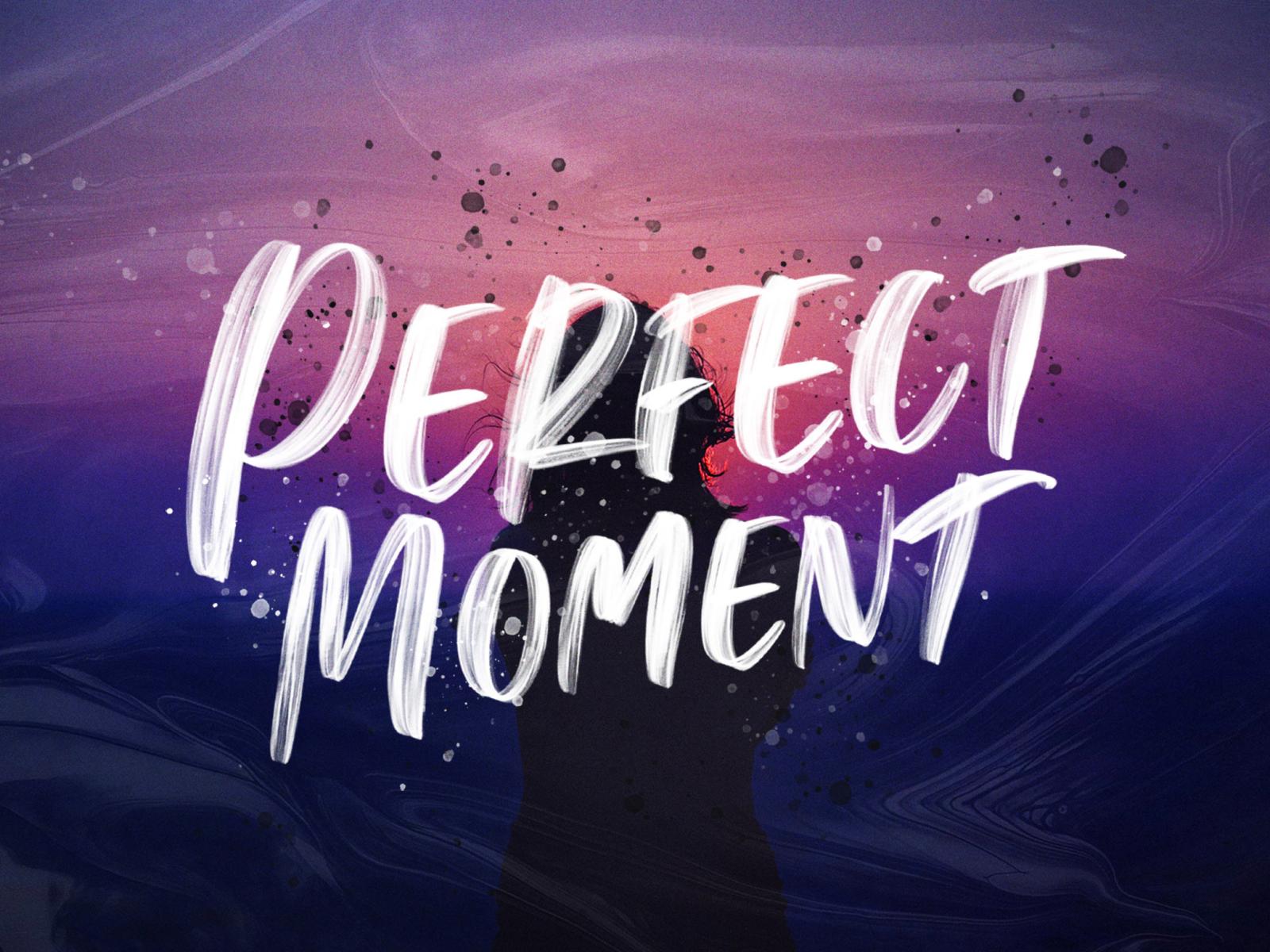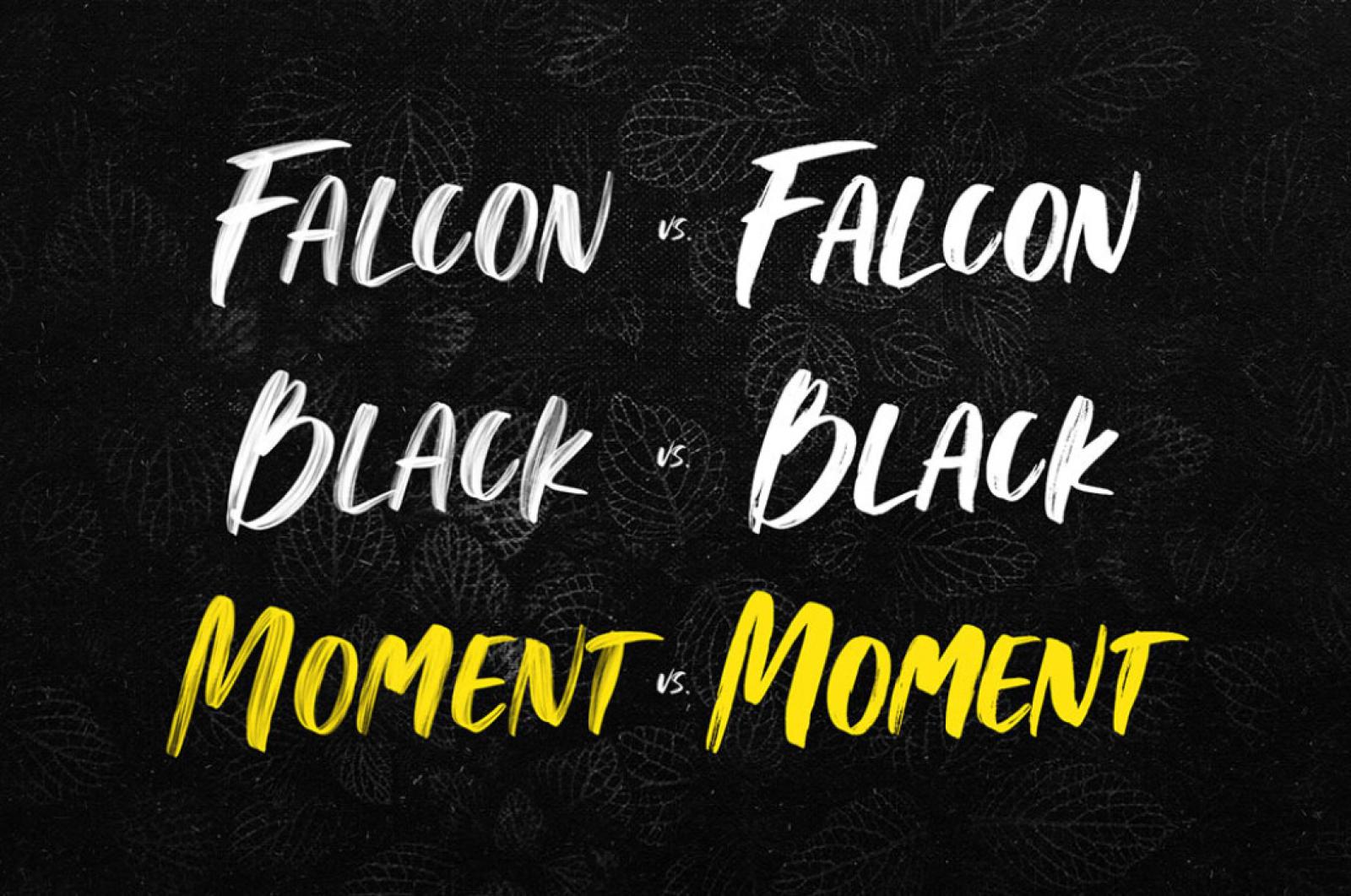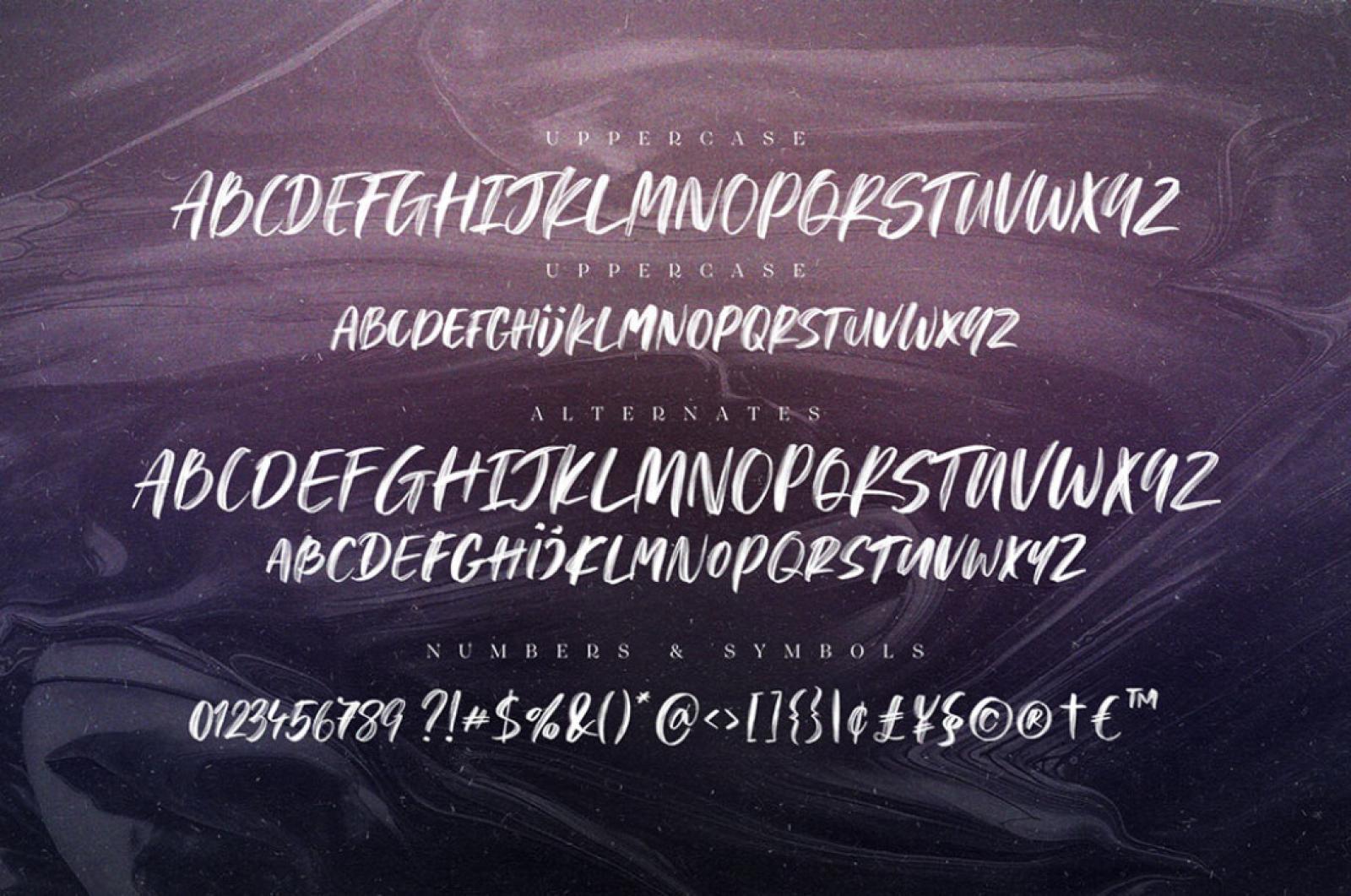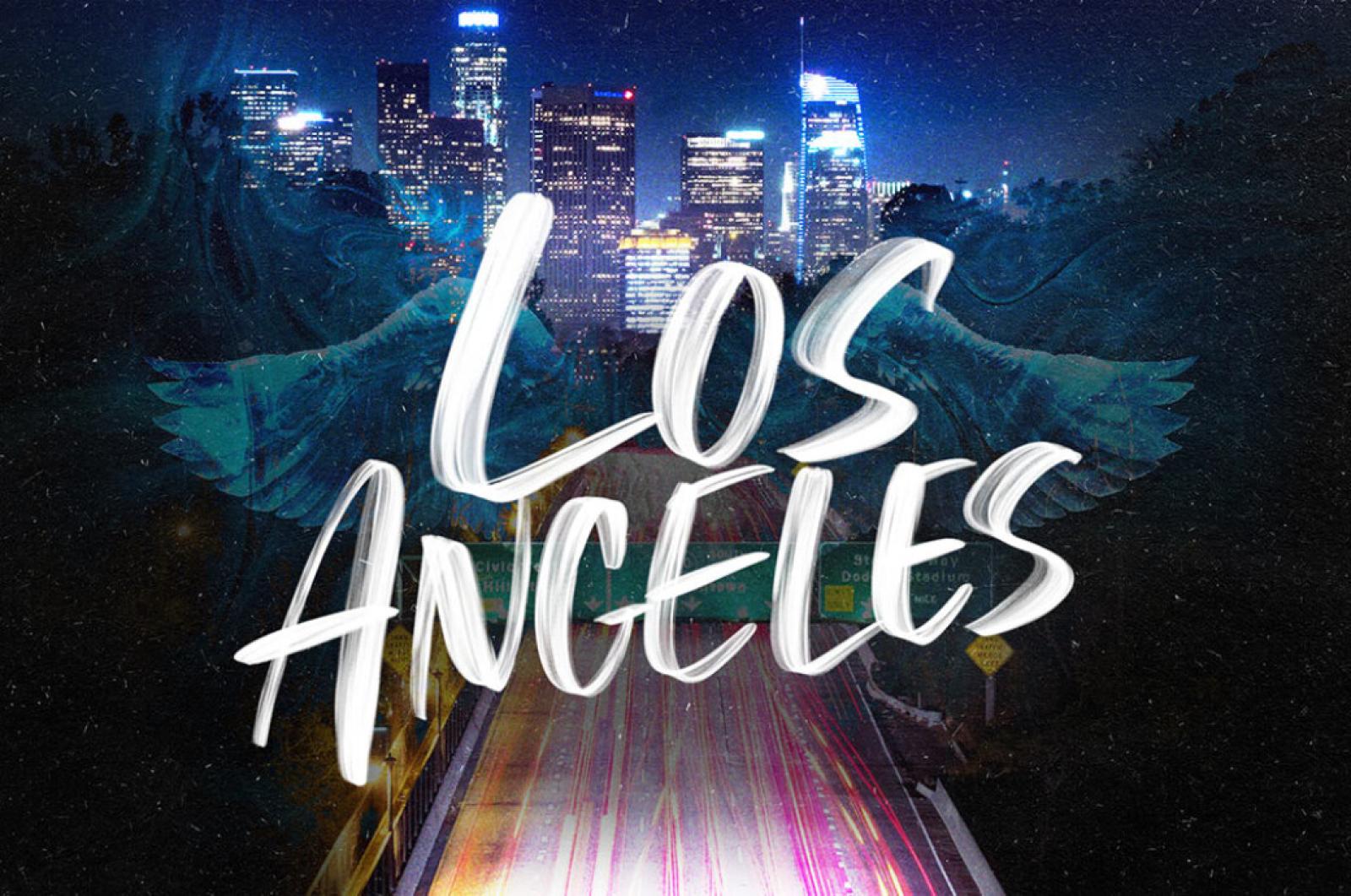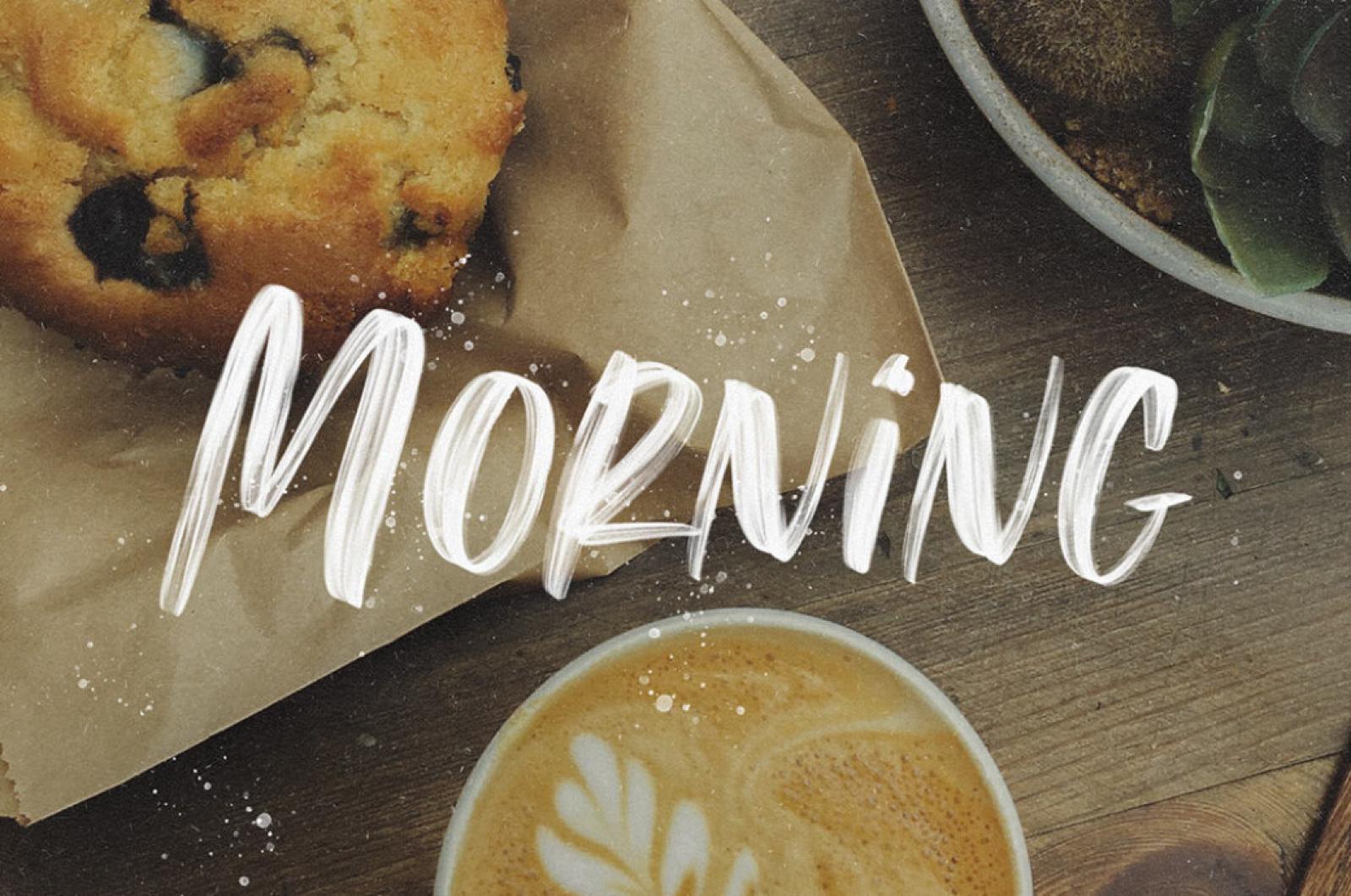
Perfect Moment Handwritten Font
Dynamic and adventurous, this SVG font transfers the energy behind each handwritten brush type. Capture the precious moment with a striking typeface, provoking the right emotions.
Perfect Moment is the SVG font, preserving all the details of the original handwritten letters. It's an Open Type font, so doubts about it being realistic can be thrown aside. The package includes the SVG font itself, glyphs, and .otf + .ttf font versions, so you can work with it in any software. Multilanguage support is provided too. Design striking headlines, covers, banners, commercials, merch pieces, posters, and more!